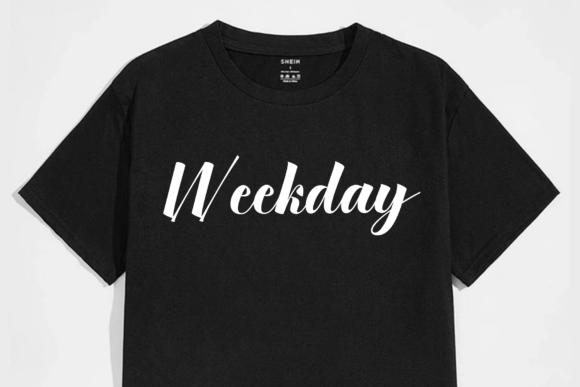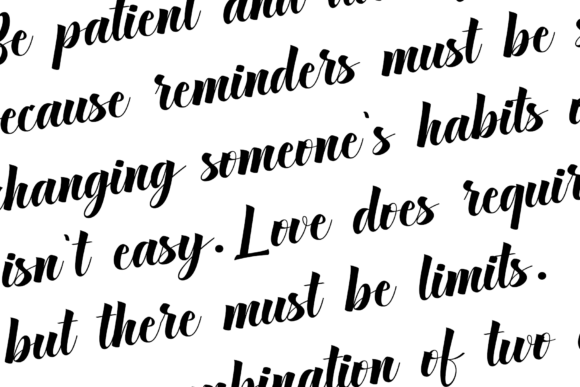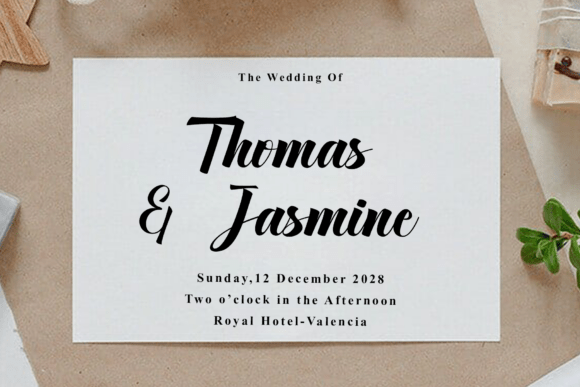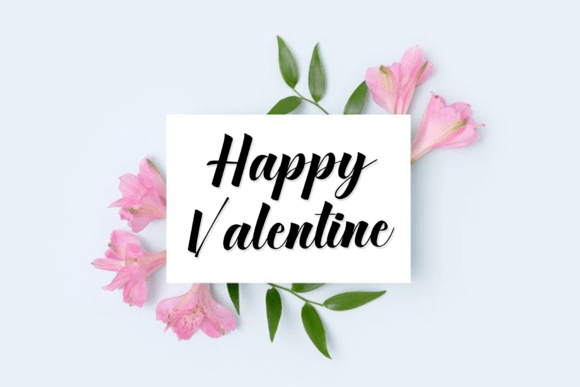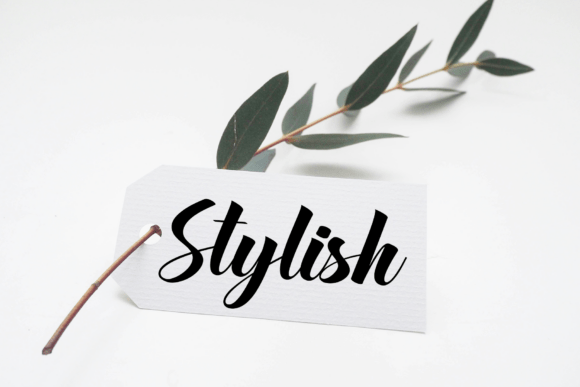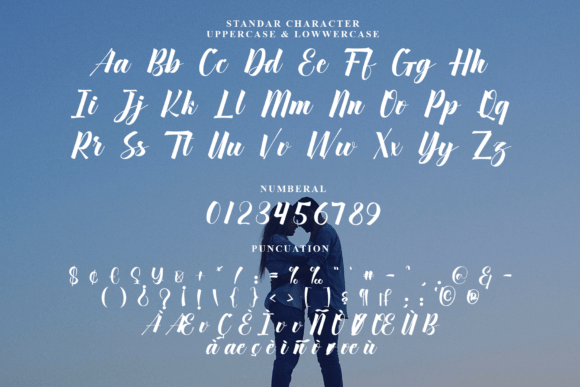
Introduction to Dailylove Font
Have you ever been working on a creative project, pouring your heart and soul into it, only to be stumped by the perfect font to convey your message? The search for that elusive perfect typeface can be frustrating, but what if I told you that there’s a font that can elevate your design to new heights? Enter the Dailylove Font, a stunningly elegant and highly refined modern handwritten script font that embodies professional artistry.
Designed to deliver a luxurious and personalized touch, the Dailylove Font is a game-changer for high-end branding. Its dramatic contrast between thick downstrokes and delicate hairlines, along with beautifully integrated ligatures and swashes, make it a design resource that’s hard to resist. Whether you’re working on a project with a transparent background or need a high-quality font for your next design venture, the Dailylove Font is an invaluable addition to any designer’s toolkit.
Key Features of Dailylove Font
- High-quality design resource for creative projects, ideal for digital artwork and print materials.
- Perfect for use in logos, branding materials, and other design projects where a touch of love and warmth is needed.
- Designed to be versatile and easily adaptable to various design styles and themes.
Honest Review: Dailylove Font
I recently stumbled upon the Dailylove Font while searching for a free download for my creative project. I must say, I was impressed by its high quality and versatility. The font is perfect for any design resource that requires a touch of love and warmth.
What works well: ✨ The font has a transparent background, which makes it easy to use on any design surface. The design is clean and modern, with a beautiful combination of uppercase and lowercase letters. The font is also highly legible, making it perfect for body text or headings.
- High quality: The font is professionally designed and looks great on any screen resolution.
However, I do have a few limitations to mention: ⚠️ The font is not suitable for all types of designs. For example, it may not be the best choice for bold or dramatic designs, as it can come across as a bit too sweet.
Overall, I’m impressed with the Dailylove Font. It’s a great addition to any design resource, and I highly recommend it for any creative project that requires a touch of love and warmth.
The Dailylove Font is perfect for a variety of creative projects, including social media graphics, blog posts, and marketing materials. Its high-quality design and transparent background make it a versatile choice for designers and non-designers alike.
Yes, the Dailylove Font is a high-quality design resource that has been carefully crafted to provide a unique and stylish look for your creative project. With its clean lines and elegant typography, the Dailylove Font is perfect for a wide range of design applications, from logos and branding to packaging and advertising.